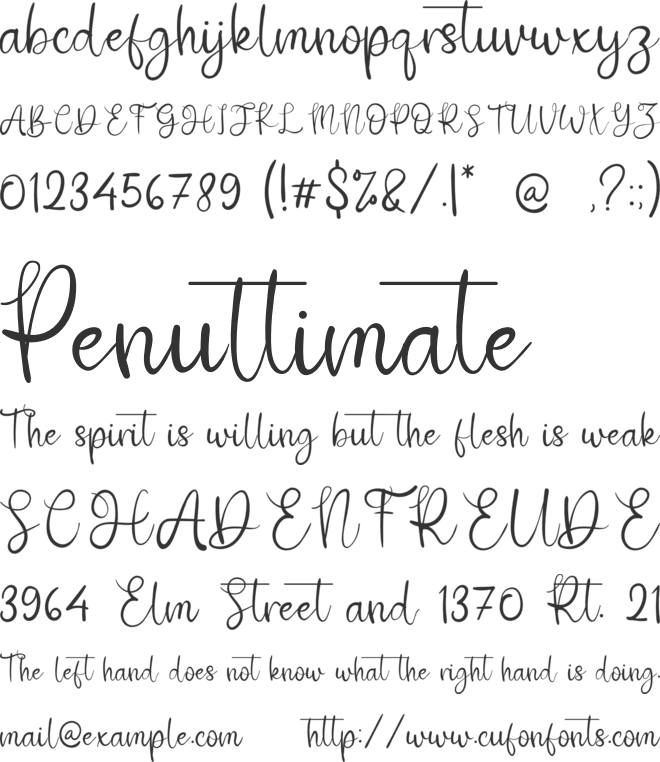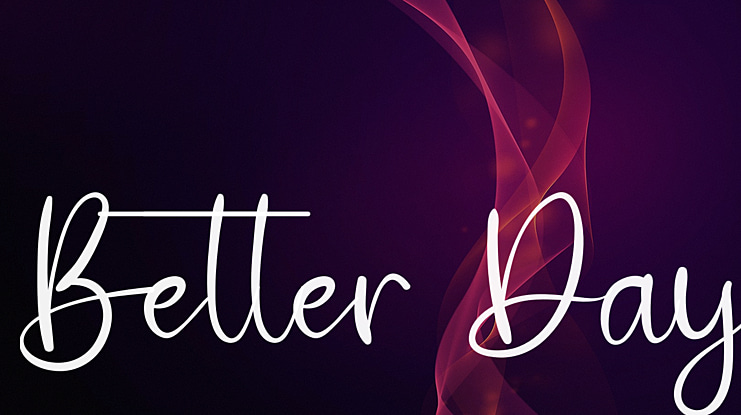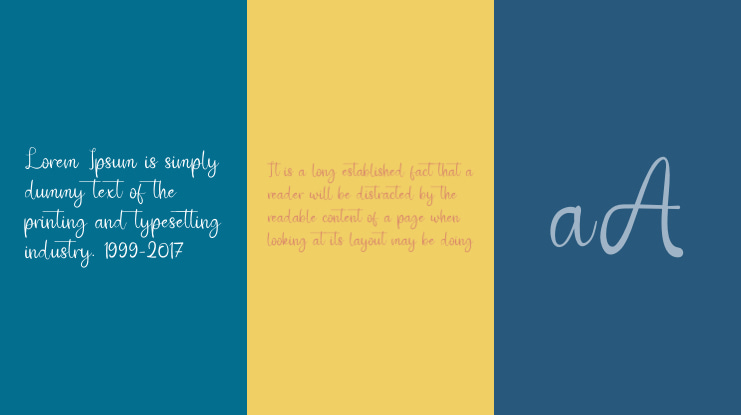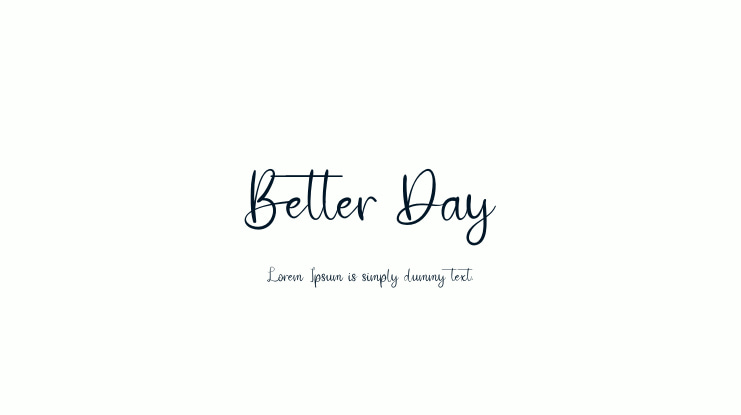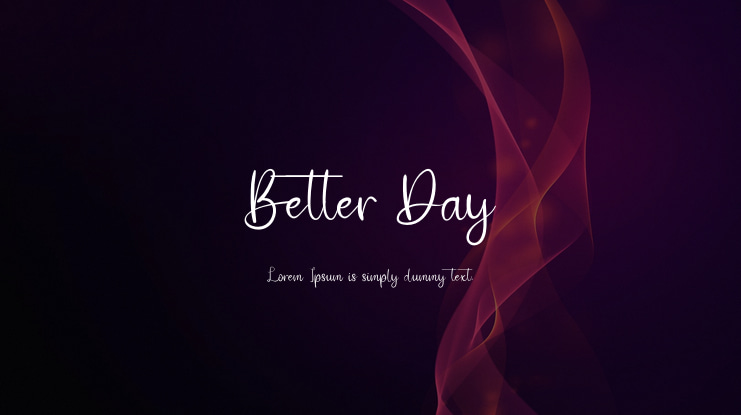
Better Day Font
Better Day is a unique and elegant handwritten font. It looks beautiful on a variety of designs requiring a personalized style, such as wedding invitations, thank you cards, weddings, greeting cards, logos and so on.